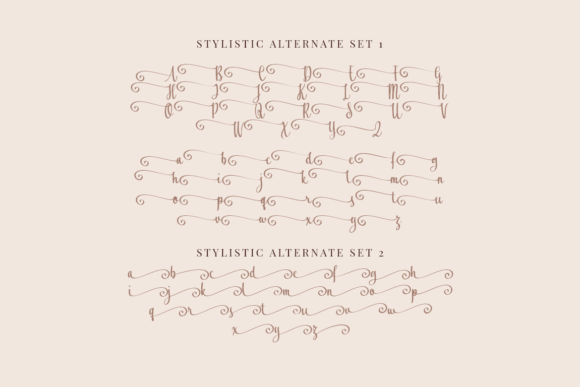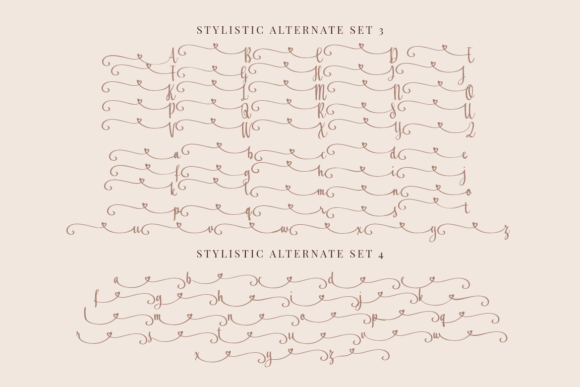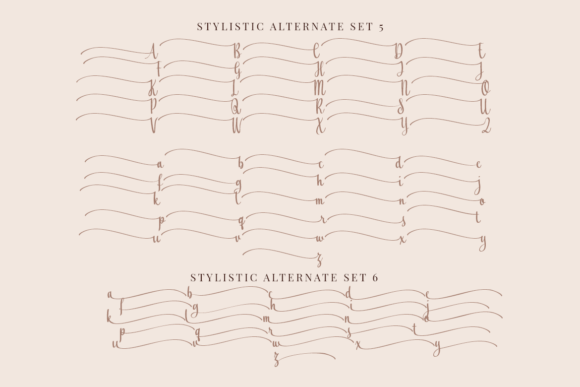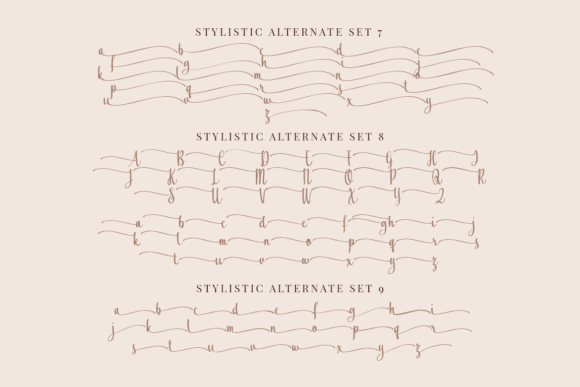
About Agnes Michael Font
Agnes Michael is an enchanting handwritten font. This versatile script font has a wide spectrum of applications ranging from greeting cards to headlines. Agnes Michael is PUA encoded which means you can access all glyphs and swashes with ease!